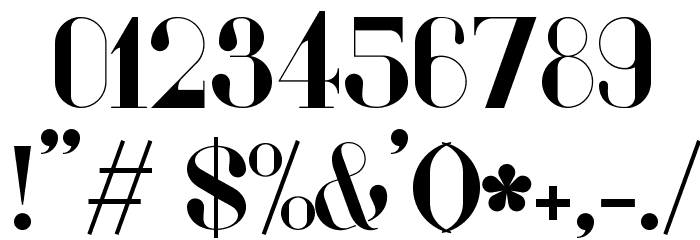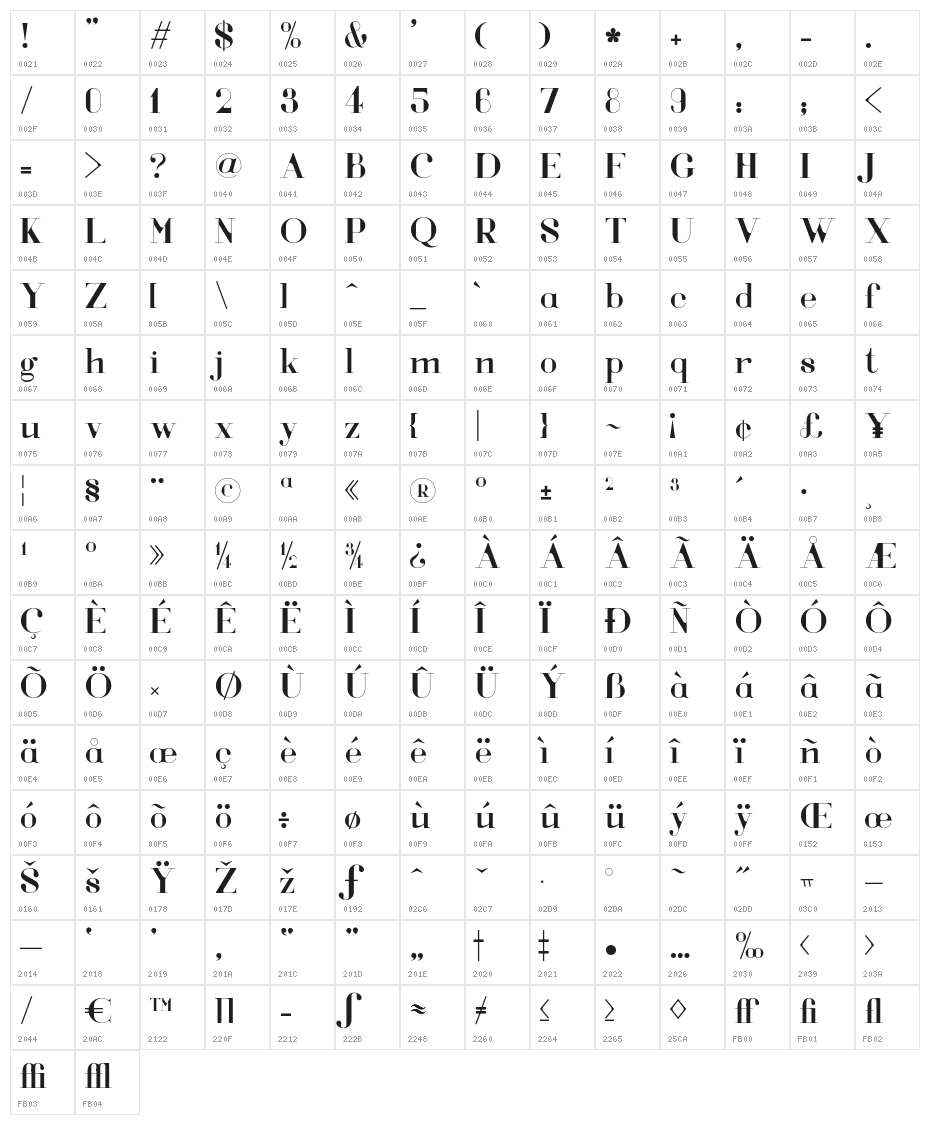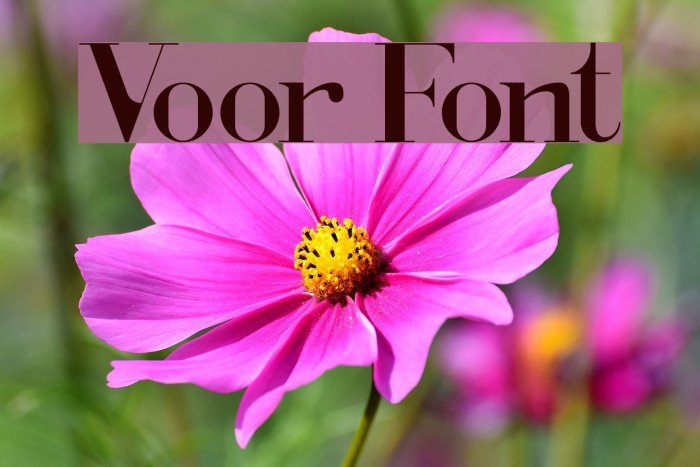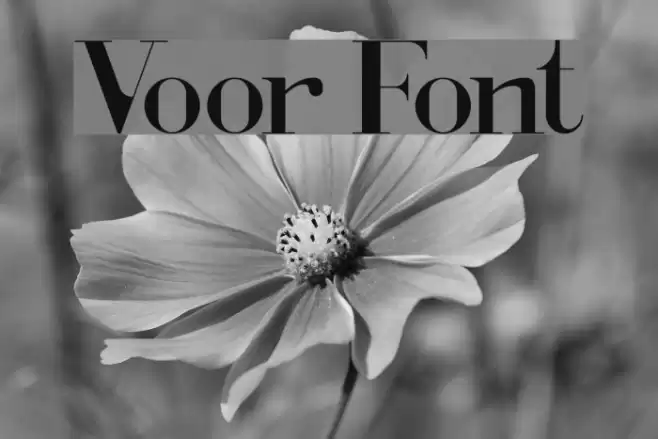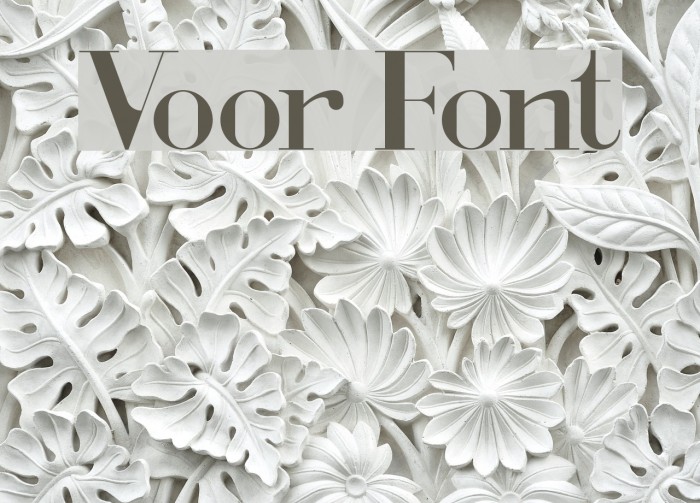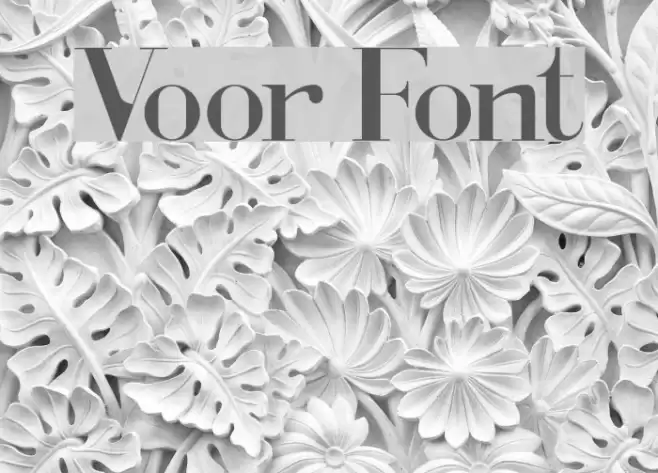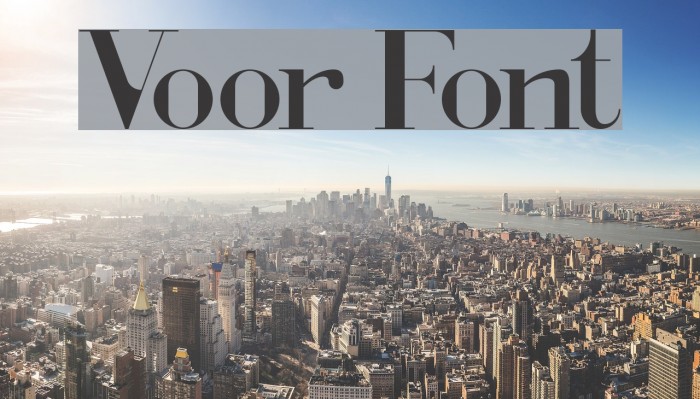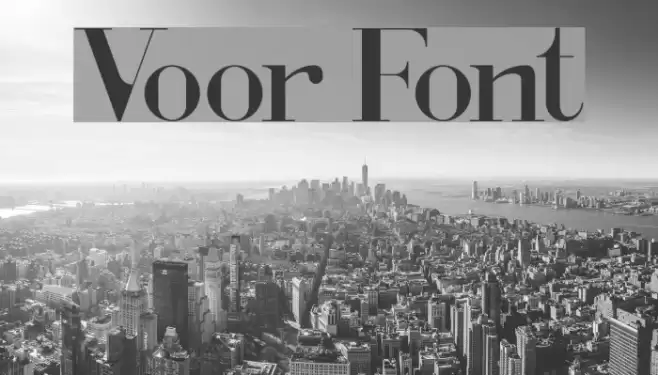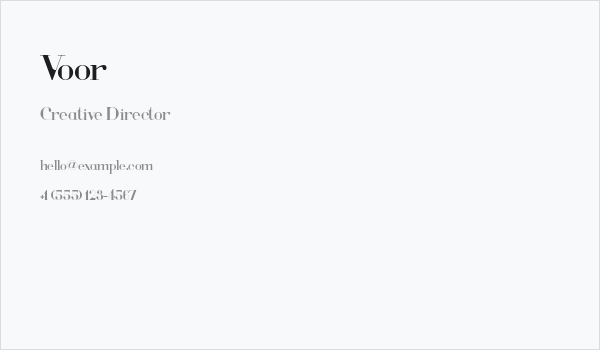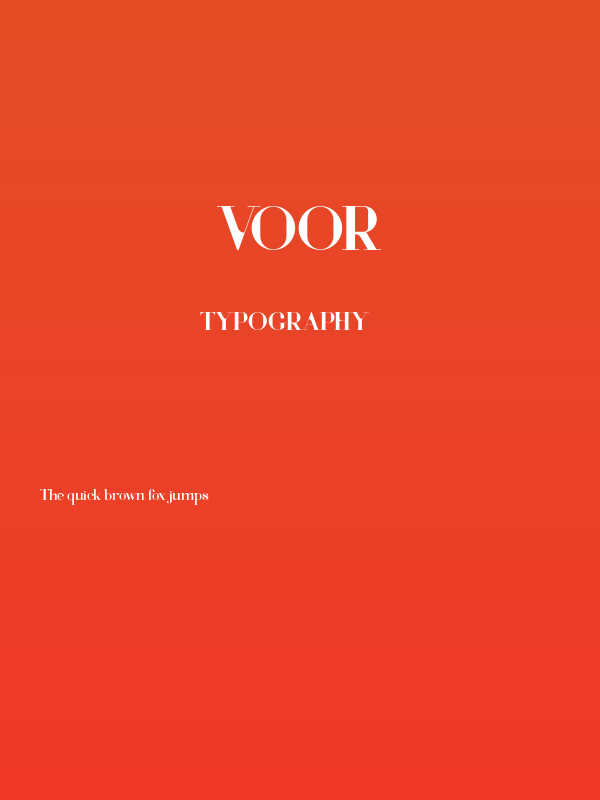
Voor Font
Voor Description
This font features a striking contrast between thick and thin strokes, giving it a sophisticated and elegant appearance. The serifs are pronounced, adding a classic touch to the overall design. Uppercase letters are tall and commanding, while lowercase letters maintain a balanced and harmonious look. The numerals are bold and distinct, ensuring readability. Special characters are crafted with attention to detail, enhancing the font's versatility. This typeface exudes a sense of refinement and is suitable for projects that require a touch of class and elegance.